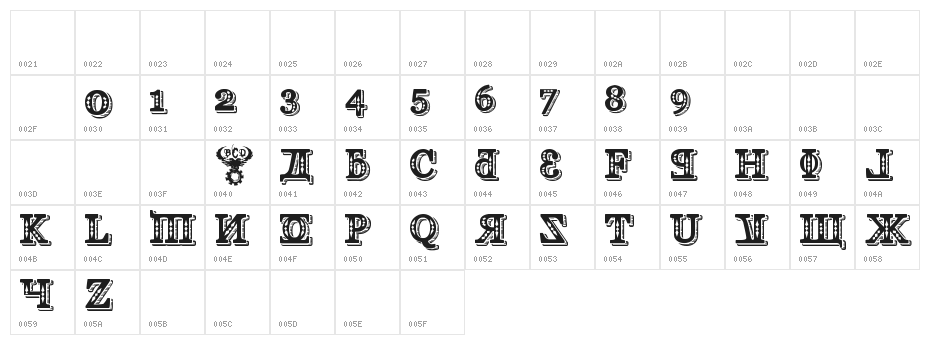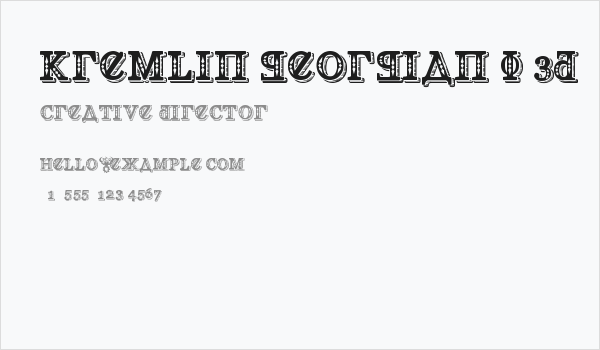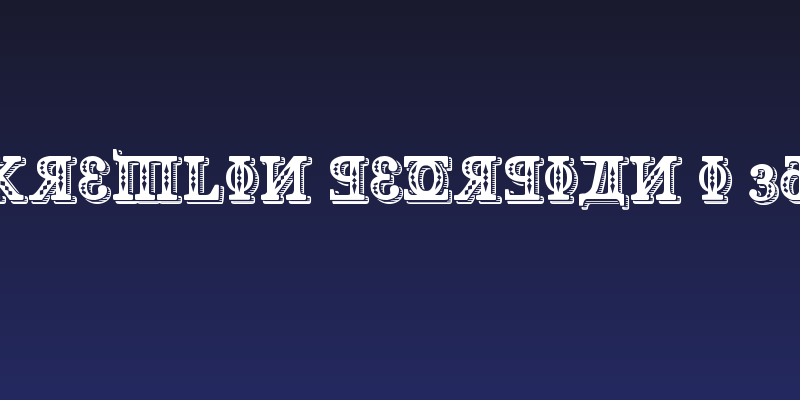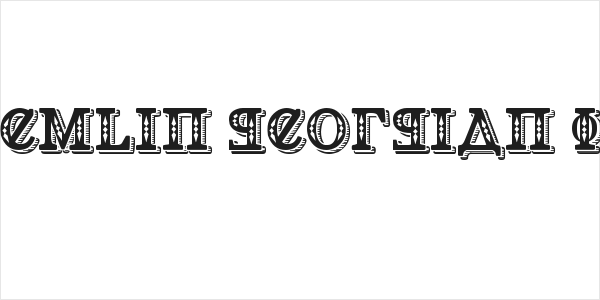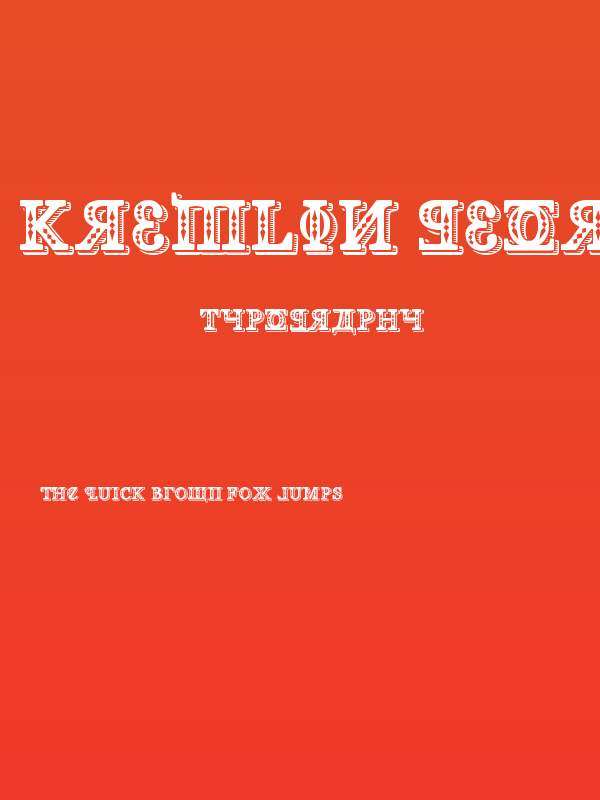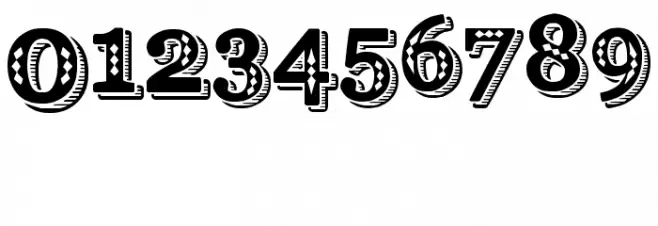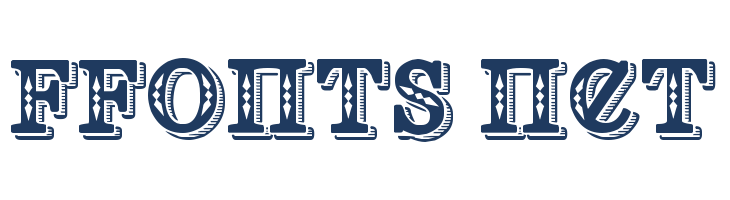
Kremlin Georgian I 3D Font
Kremlin Georgian I 3D Description
This font features a bold and decorative style with a three-dimensional effect. The characters are designed with intricate patterns and shadows that give them a distinct, embossed appearance. The uppercase letters are particularly striking, with strong geometric shapes and elaborate detailing. The numbers follow the same ornate style, making them stand out with their unique embellishments. This font is ideal for projects that require a dramatic and eye-catching typeface.
| Proposed Projects | Ideal for posters, logos, and headlines where a dramatic and attention-grabbing font is needed. |